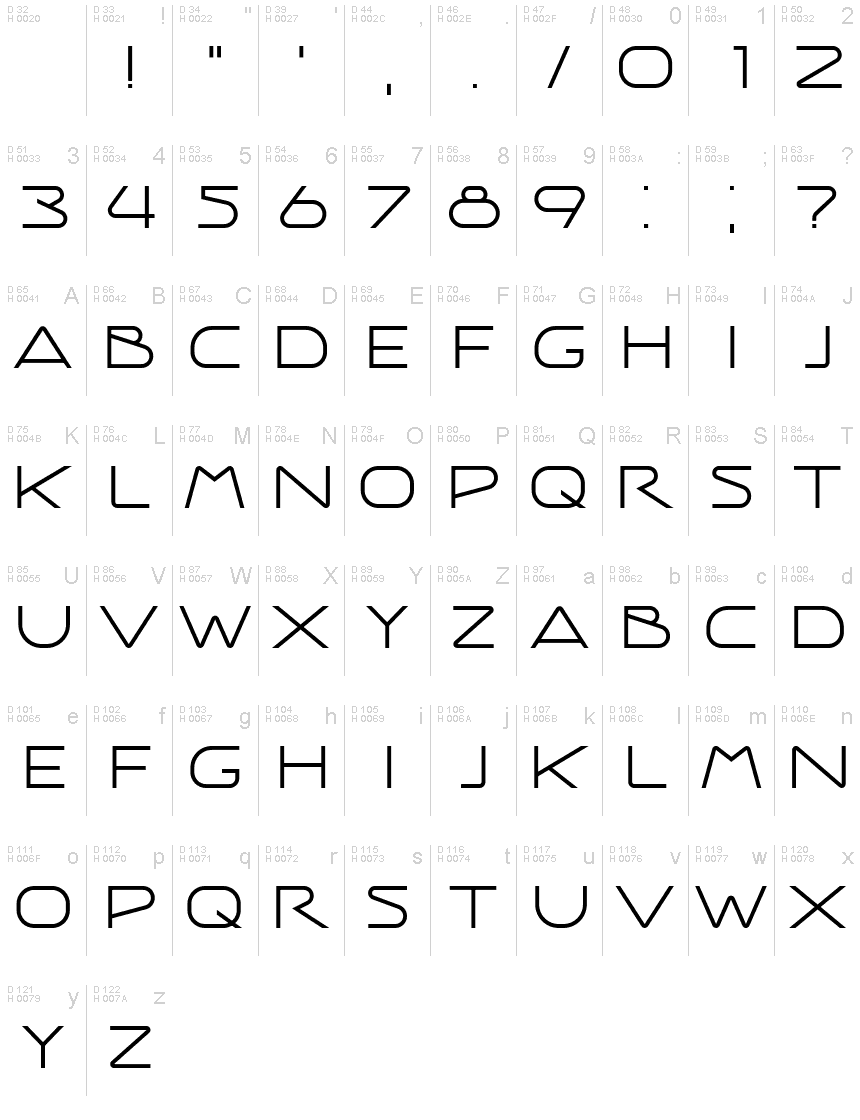
Science And Fiction Regular
Science And Fiction, crafted by the talented Vladimir Nikolic, presents a sans serif font with a light weight and an expanded width that radiates modernity and sleekness. Its clean lines and open forms lend an air of precision and clarity, making it not just legible but also aesthetically pleasing. The distinct expansiveness of each character gives this typeface a commanding presence on the page or screen, ideal for headlines or any application where you want your message to stand out.
The elegant simplicity of Science And Fiction makes it a versatile choice for various design projects. Whether you're creating branding materials for a tech startup, laying out an editorial spread in a magazine, or developing user interfaces for futuristic software, this font is designed to capture attention while maintaining readability. Its subtle sophistication ensures that your creative work will make a memorable impact.